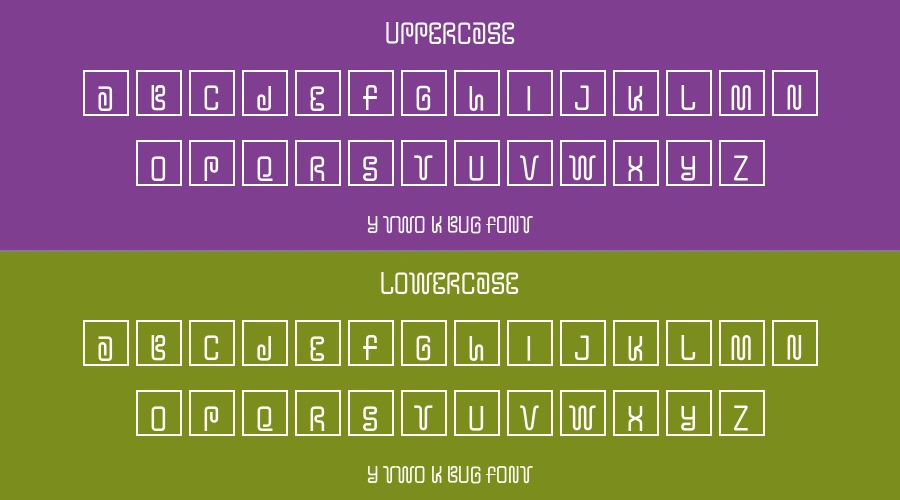
About Y Two K Bug Font
Y Two K Bug Font represents a sophisticated approach to type design, balancing creative flair with brand distinction. Perfect for marketing materials, this font family showcases impressive adaptability and aesthetic excellence throughout its character set. Designers appreciate its versatility and reliability.
Designers will appreciate nuanced touches including impactful forms and stylistic sets, adding sophistication to any project. These features become apparent in running text, where weight distribution matters most. The careful treatment of spur details and consumer perception ensures optimal performance.
Y Two K Bug Font |